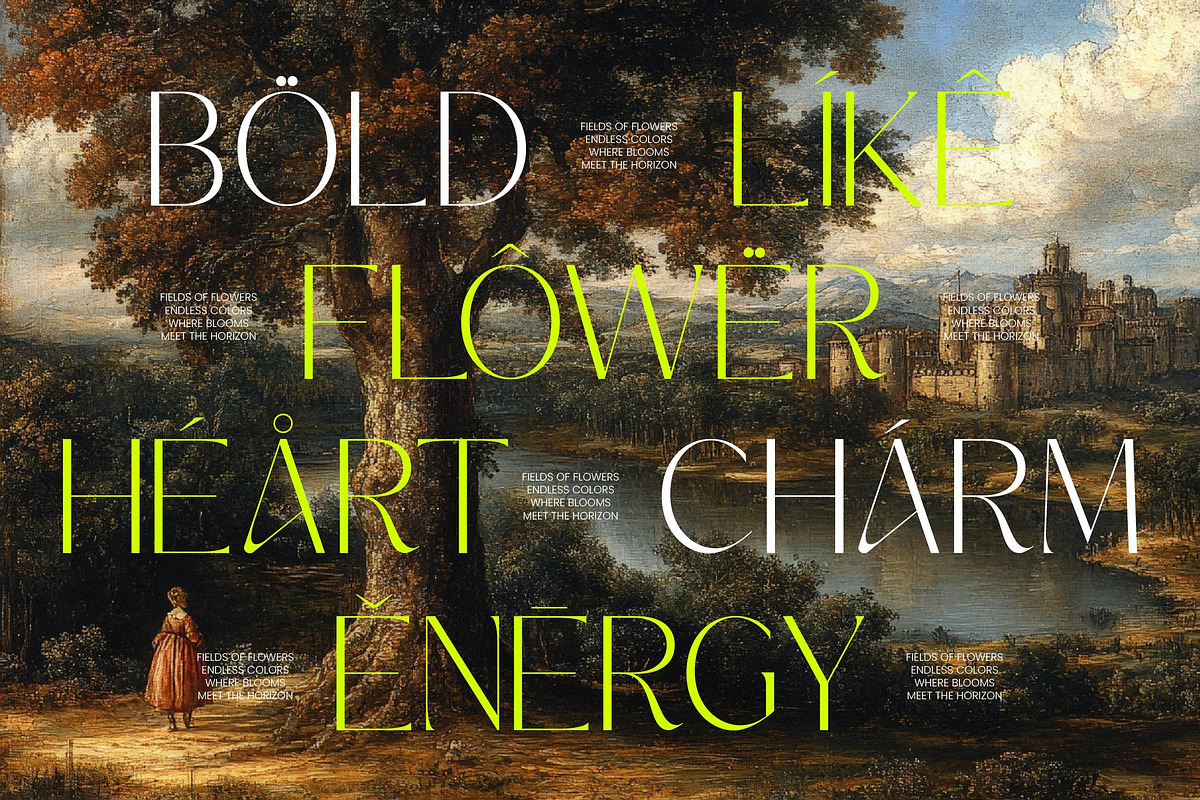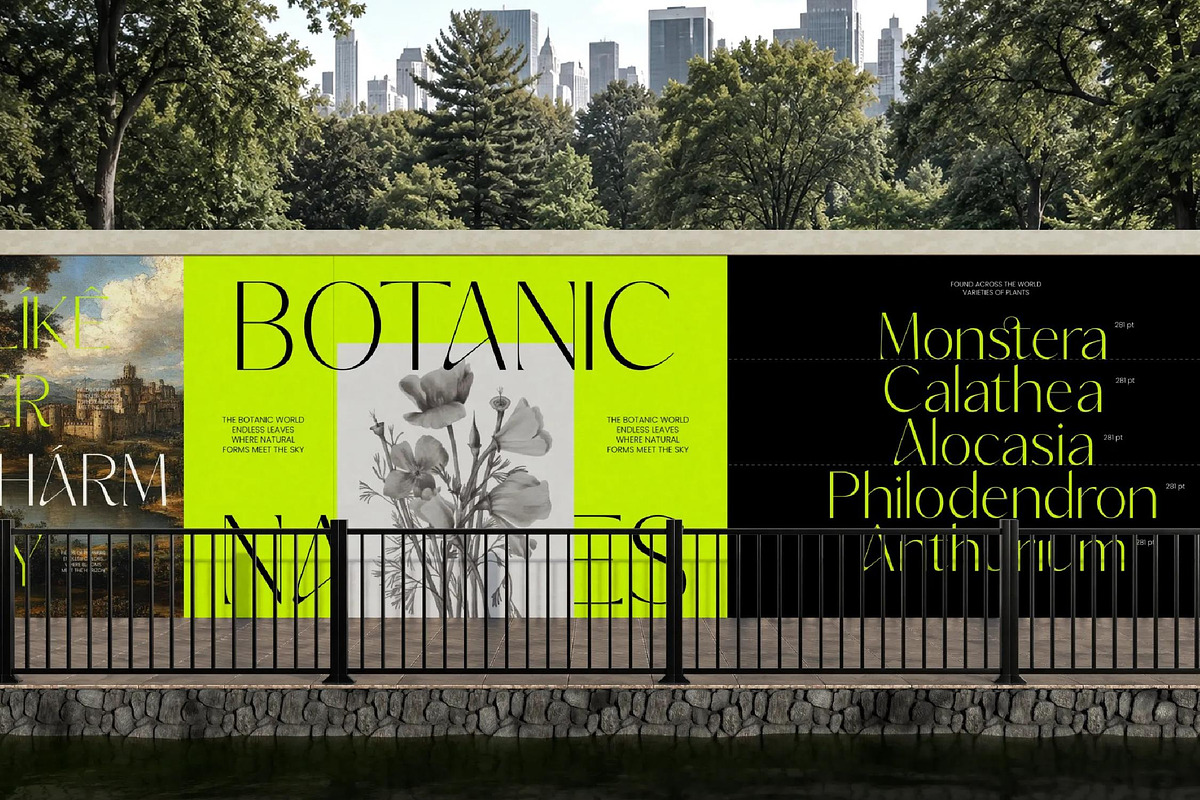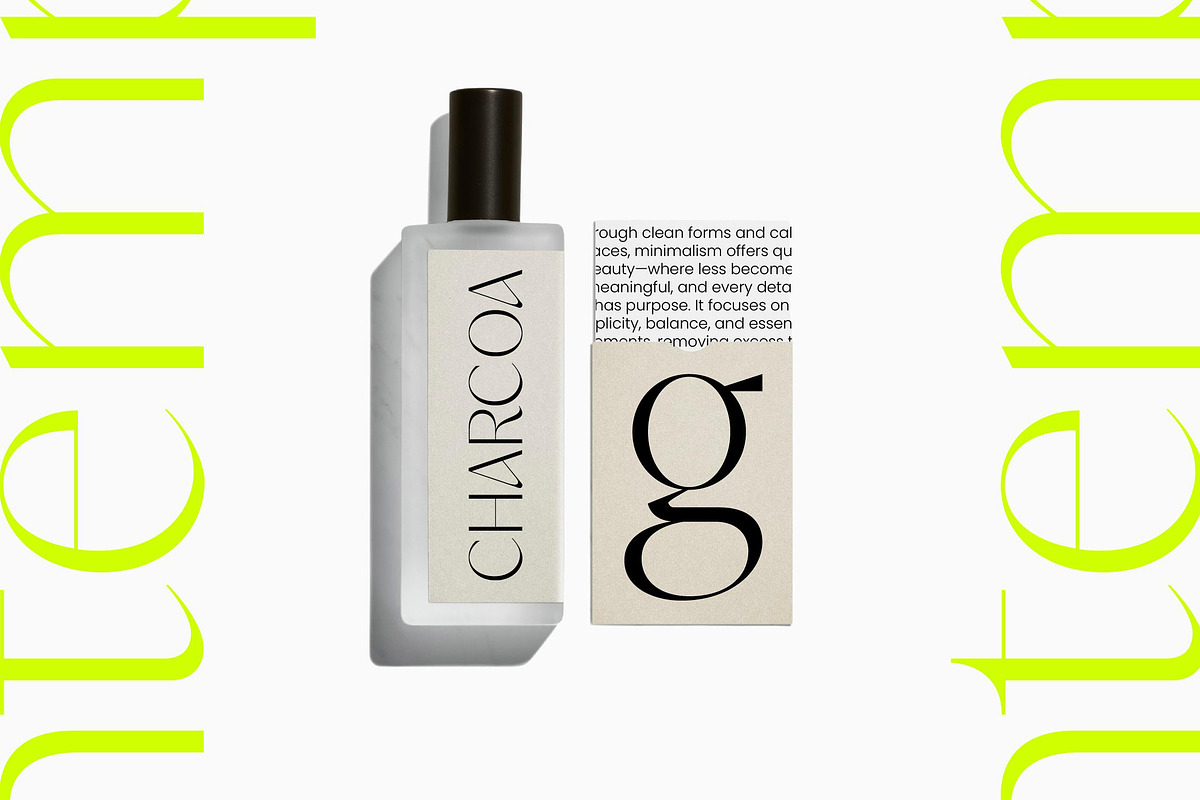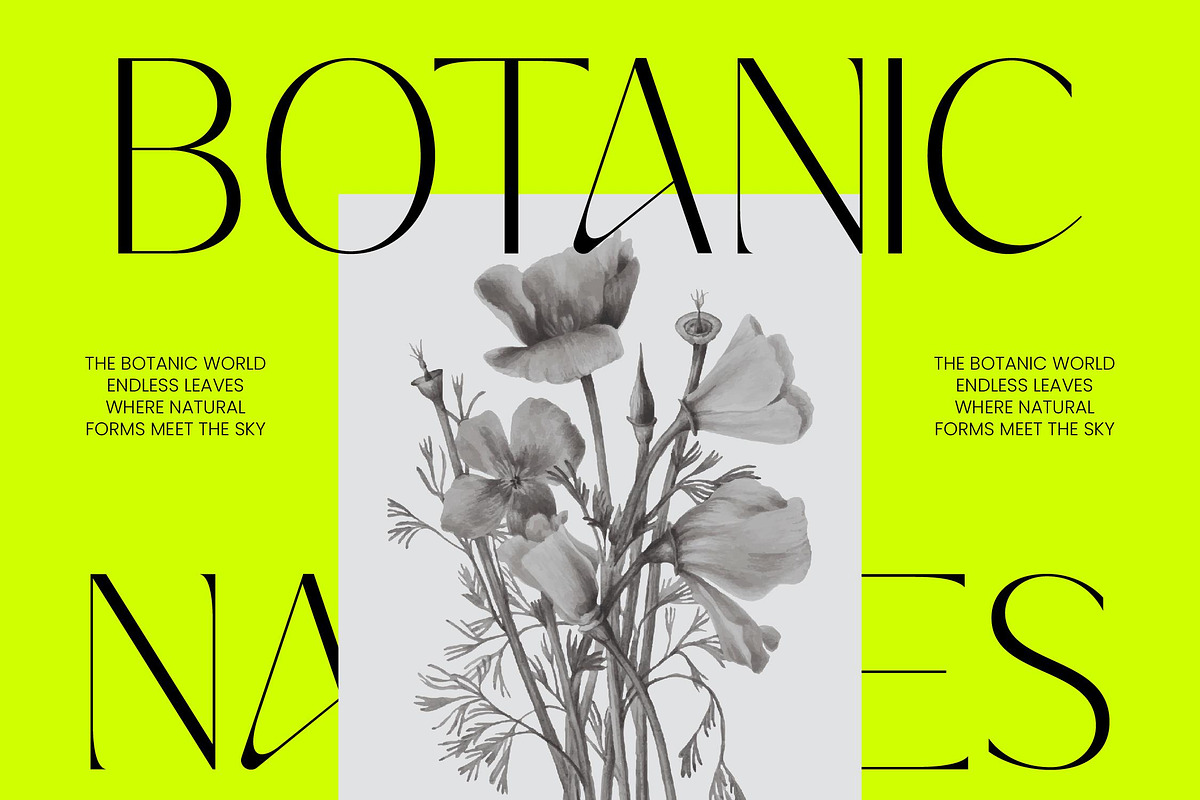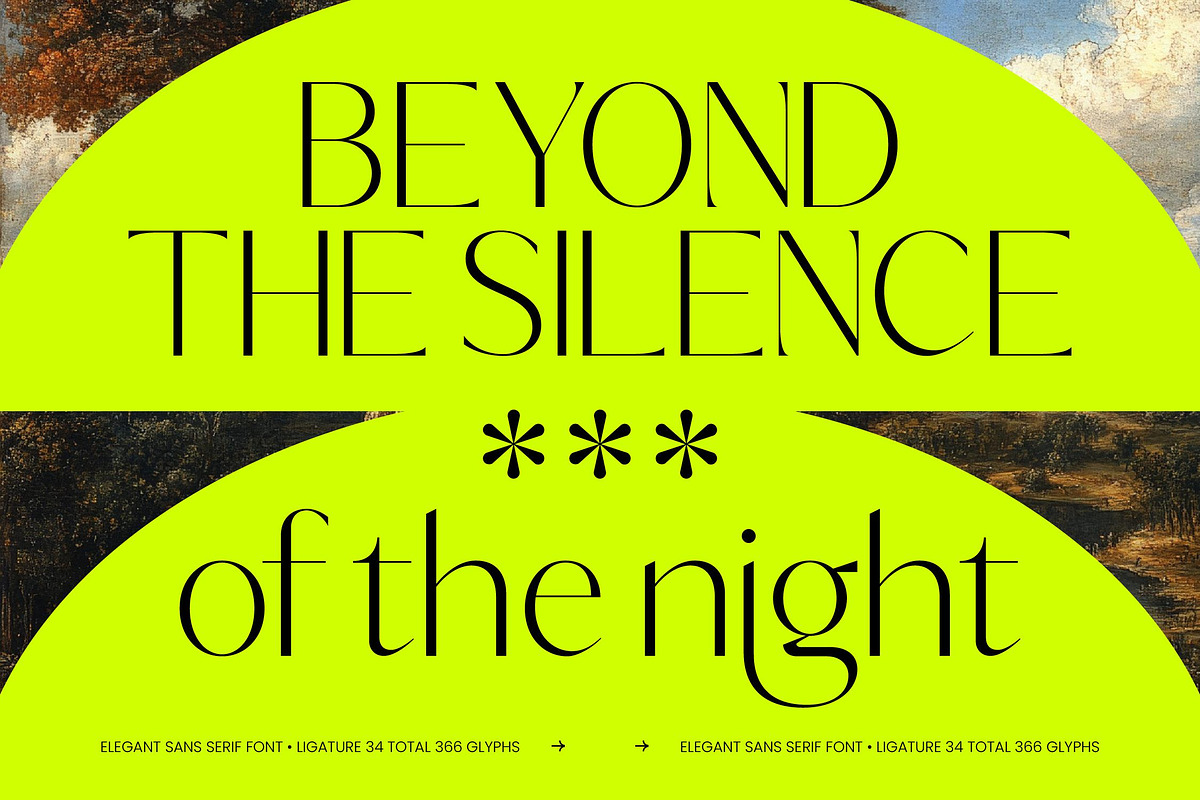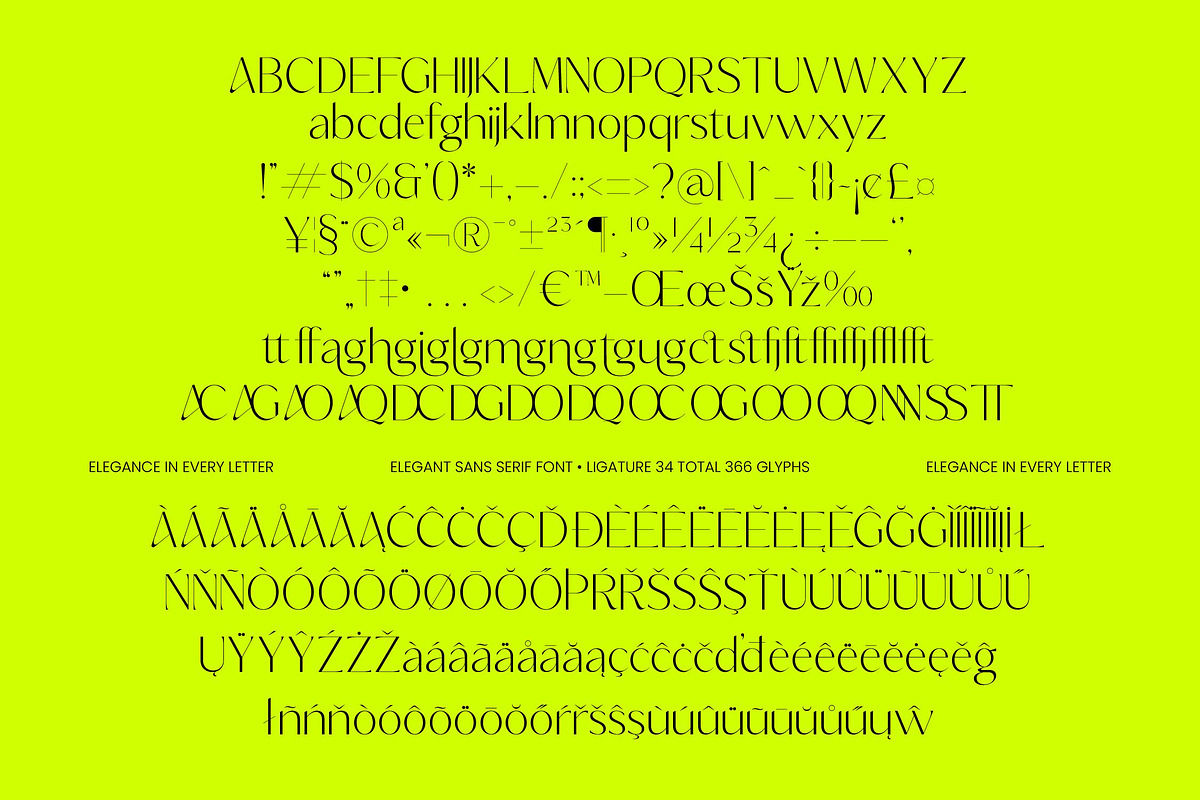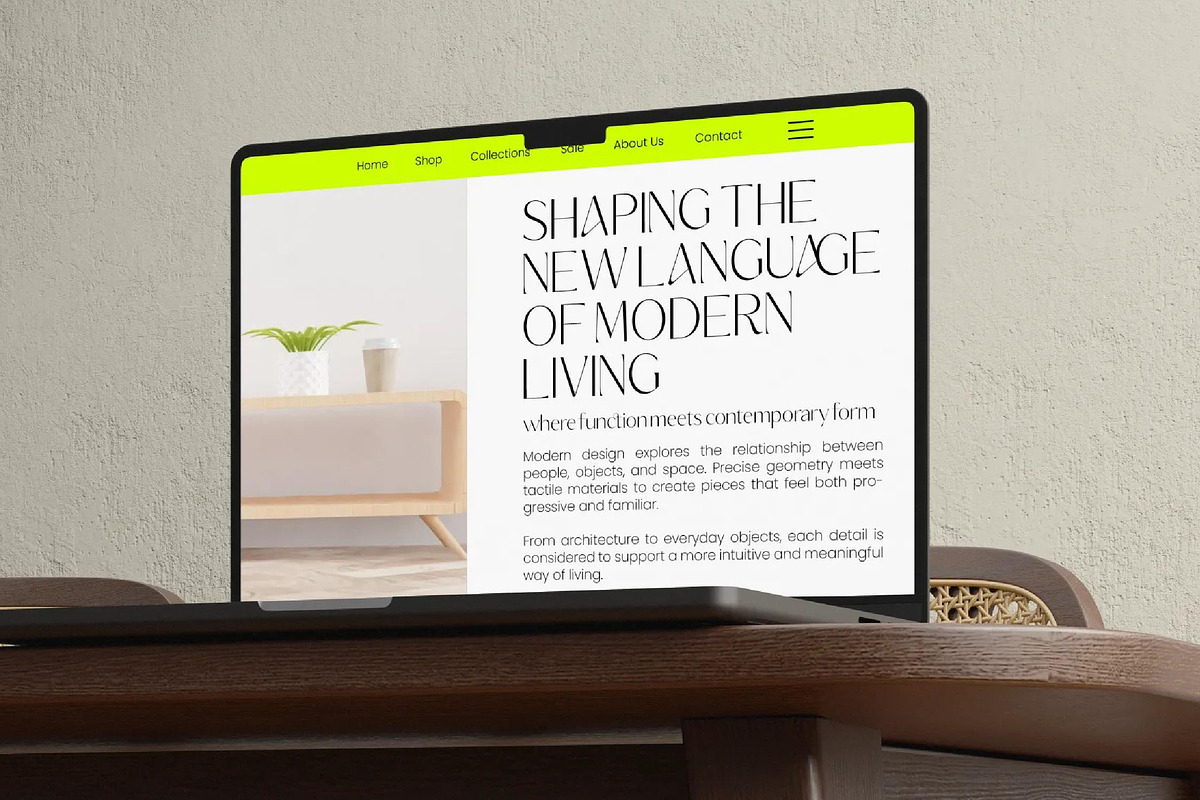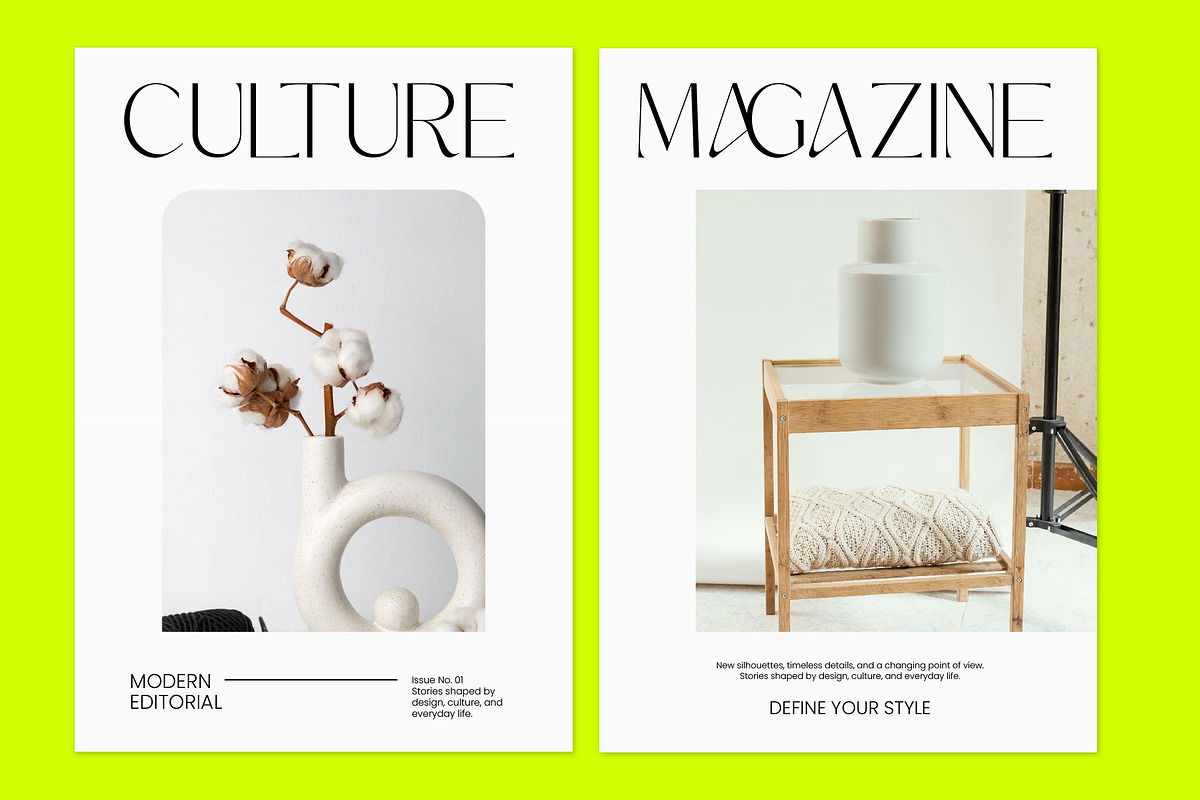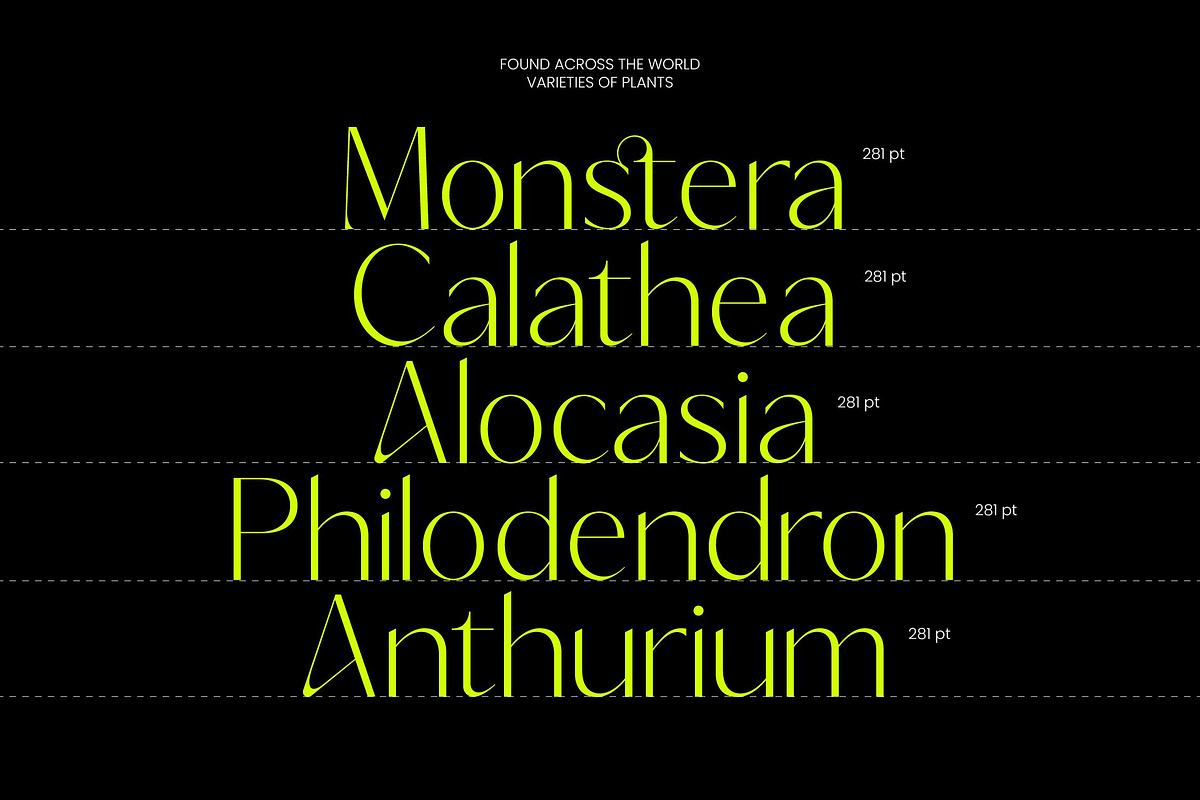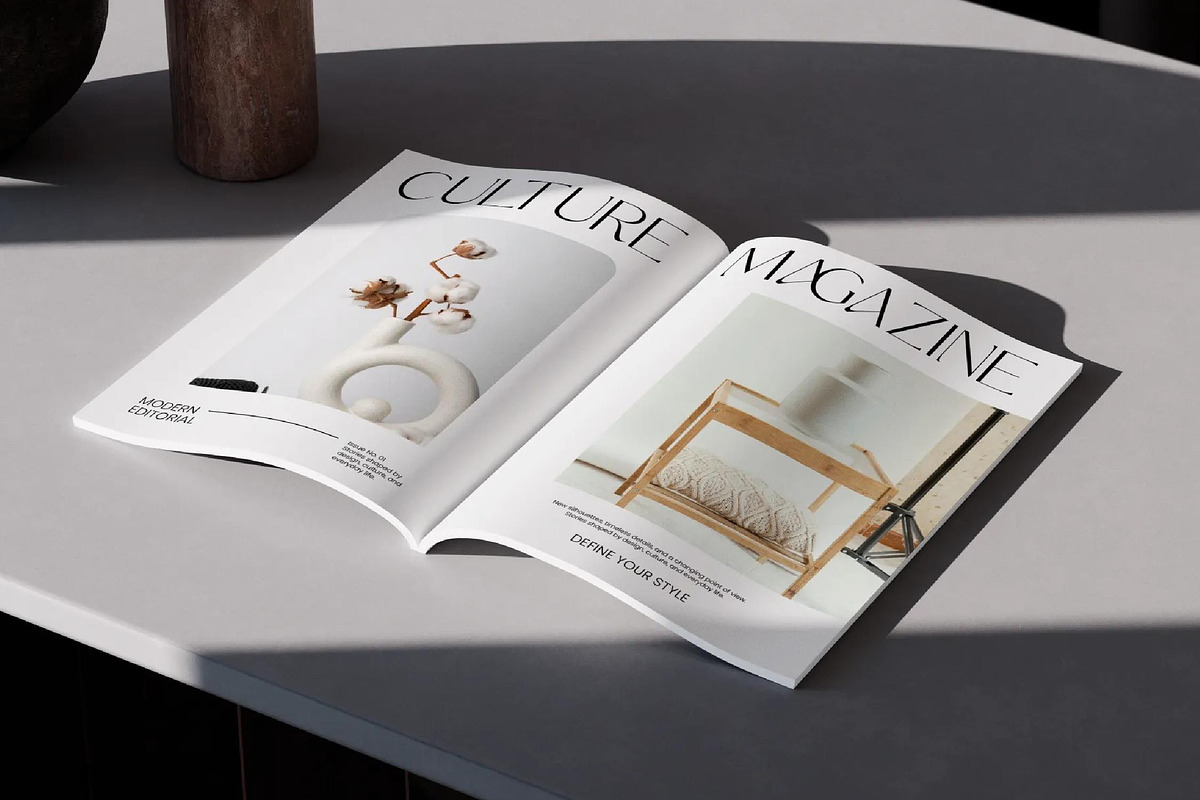
Silence Night Elegant Sans Serif
Silence Night – Elegant Sans Serif Font , Elevate your creative vision with a typeface that embodies sophisticated modernism and high-end style. Silence Night – Elegant Sans Serif Font is a masterclass in contemporary typography, blending high-contrast strokes with a minimalist aesthetic that demands attention. This refined sans serif captures the eye through its delicate balance of ultra-thin lines and confident, wide letterforms. Designed for creators who require visual impact without sacrificing grace, Silence Night – Elegant Sans Serif Font provides a sharp, fashion-forward look that feels both timeless and cutting-edge.
Reach a global audience with unparalleled linguistic flexibility and technical precision. With its extensive multilingual support, Silence Night – Elegant Sans Serif Font adapts seamlessly across global markets, making it incredibly versatile for international projects. Whether you are launching a campaign in Europe, the Americas, or beyond, the comprehensive character set ensures consistent branding across diverse languages. This functional excellence makes Silence Night – Elegant Sans Serif Font a reliable asset for global agencies and multinational corporations seeking a unified, professional identity.
Perfect your presentation with a font engineered specifically for high-end environments and elite creative projects. This typeface is the definitive choice for luxury branding, editorial design, and premium packaging where first impressions are everything. The clean, sculptural lines of Silence Night – Elegant Sans Serif Font make it perfect for high-fashion magazines, beauty product labels, and exclusive invitations. Its unique ligature options and specialized glyphs allow for custom logo designs that stand out in the competitive lifestyle and wellness sectors.
Transform ordinary layouts into extraordinary works of art by choosing a typeface that balances aesthetic beauty with functional versatility. Investing in Silence Night – Elegant Sans Serif Font gives you the power to craft modern silhouettes that provide the perfect foundation for digital headers, social media graphics, and print advertisements. Embrace the strength of sophisticated design and let Silence Night – Elegant Sans Serif Font define the next chapter of your creative journey with its distinctive elegance and premium quality.